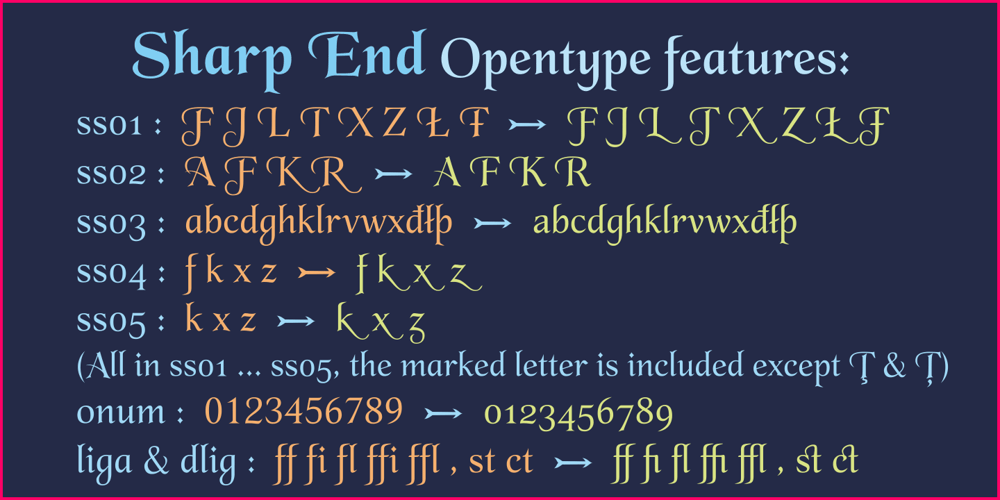
Sharp End Font Family was designed by Sudarmaji and published by Asritype. Sharp End contains 3 styles and family package options. Sharp End fonts support Latin Based Languages only (see Tech Specs). Sharp End’s creation is inspired by Gothic sharpness shape but only applied to the ends of normal letters. Make the font look beautiful and elegant, look as semi-serif, as calligraphic touch or others. The base of the Capital Characters is set a little bit lower than the small cases/lowercases. On small/normal size typing, the difference is less visible (obscure), but will be more visible/more clear as the typing set larger. Thus, Sharp End fonts will work well for both text and display. The fonts has also character variants. The character variations (in PUA) set in 5 stylistic sets ss01 … ss05 (see Sharp End opentype features poster). So, these character variations will be easier accessible in more common application such as MS Words, Text Edit or the others. The glyphs may also be accessed via Character Map, Character viewer, insert character, insert symbol or other similar tools. You can use Sharp End for most of typing and design means such as: greeting, invitation, wedding and other cards; books, magazines, news, banners, logos, Pamphlets, advertising etc., for printing or digital/web display. As addition, with 3 weight variants, the regular will fit for longer text for normal use, while the bold and semi-bold is more suited for the covers, impressions, titling, Logos, design or other usage. With its smoothness curve and sharp ends, Sharp End will pairs well to most fonts of various kinds: Sans Serif, Serif, Handwritten, Scripts and others. As the example in one poster, Sharp End is paired with Astonice and Apresia Script (ornamented script font, one of the richest letter variations and ornaments). Thank you for visiting. Again, thank you very much for downloading this awesome fonts.